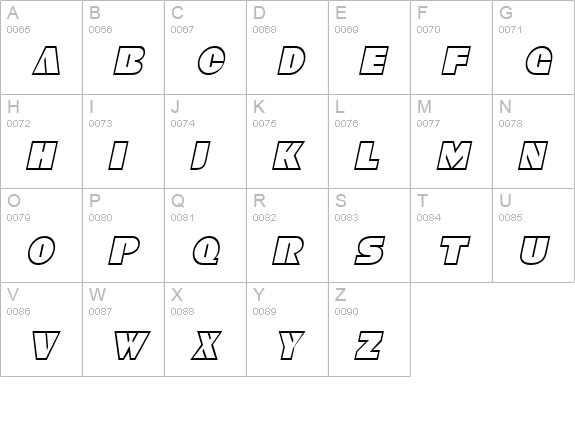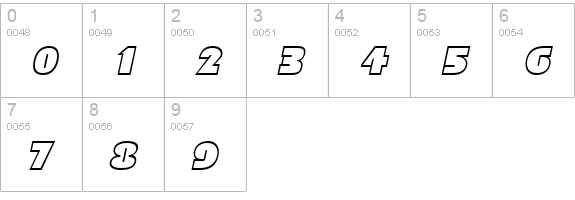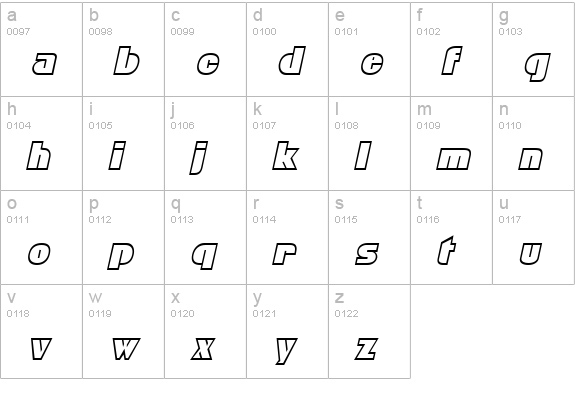
Bleucher Italic Font Details
Bleucher Italic is a distinctive, italic variant in the Bleucher typeface family \xE2\x80\x94 well suited to design and typography projects.
Bleucher Italic font exudes elegance and sophistication with its graceful curves and stylish flair. This font is perfect for adding a touch of class to any design project, whether it be for invitations, posters, or branding materials. The italicized slant of the letters adds a sense of movement and dynamism to the text, making it visually appealing and engaging to the reader. What makes Bleucher Italic font even more enticing is that it is available for free download at FontsMarket.com. This means you can easily access this beautiful font and incorporate it into your designs without any cost. Don't miss out on the opportunity to elevate your projects with the timeless charm of Bleucher Italic font - download it today and let your creativity shine!